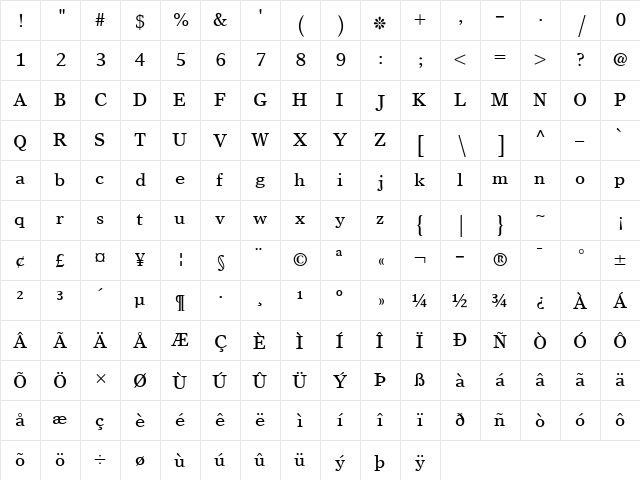
Yakout Linotype Light
| Foundry | Linotype GmbH |
| Designer | Linotype Design Studio |
Design Context for Yakout Linotype Typeface
Yakout Linotype offers clean, dependable letterforms without strong stylistic allegiance, making it a practical choice for designers who need flexibility. Its slender proportions lend an understated elegance to any composition.
Pro Tip: Pair Yakout Linotype with a font of contrasting weight or personality to build a more expressive typographic hierarchy.